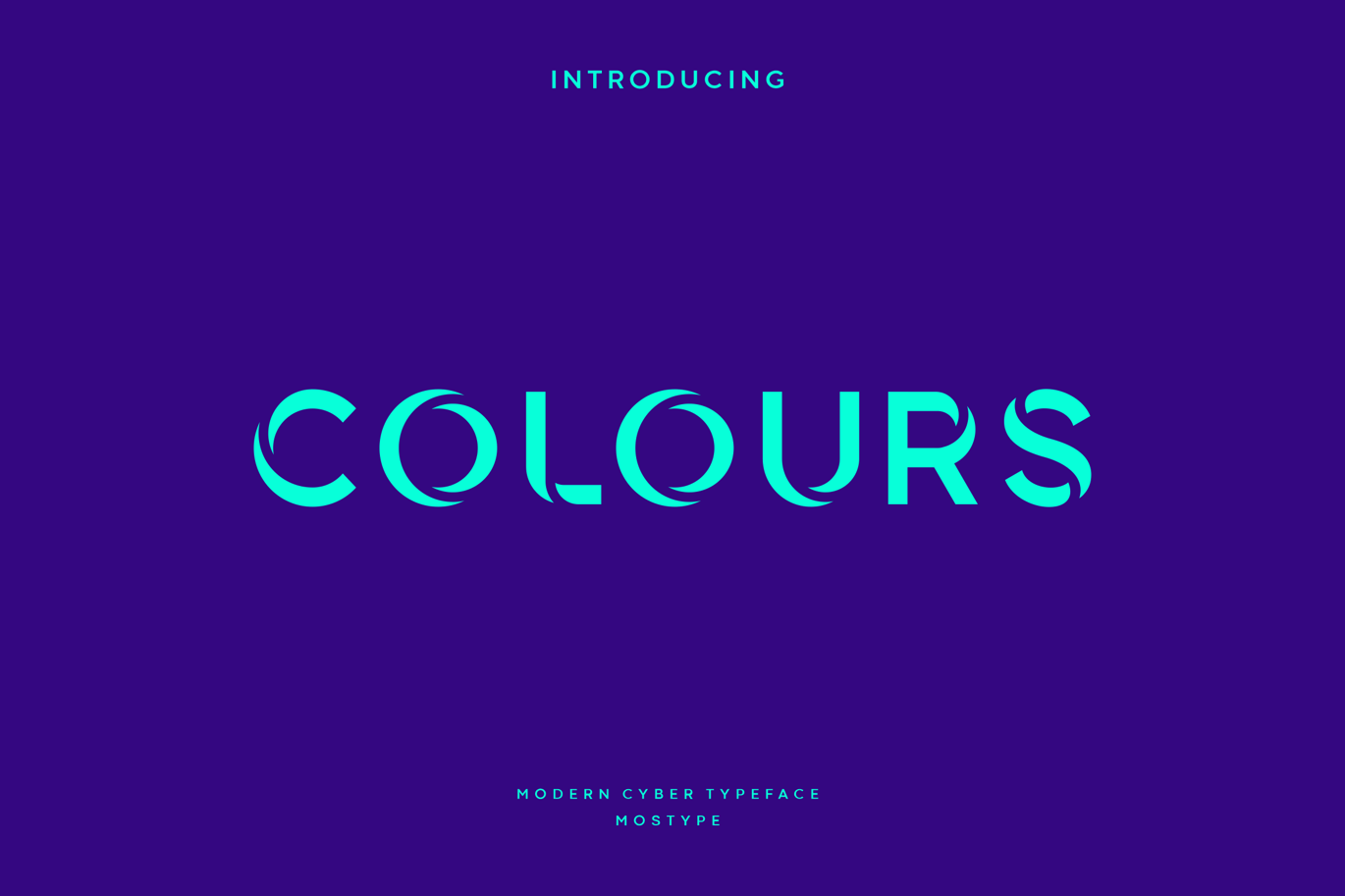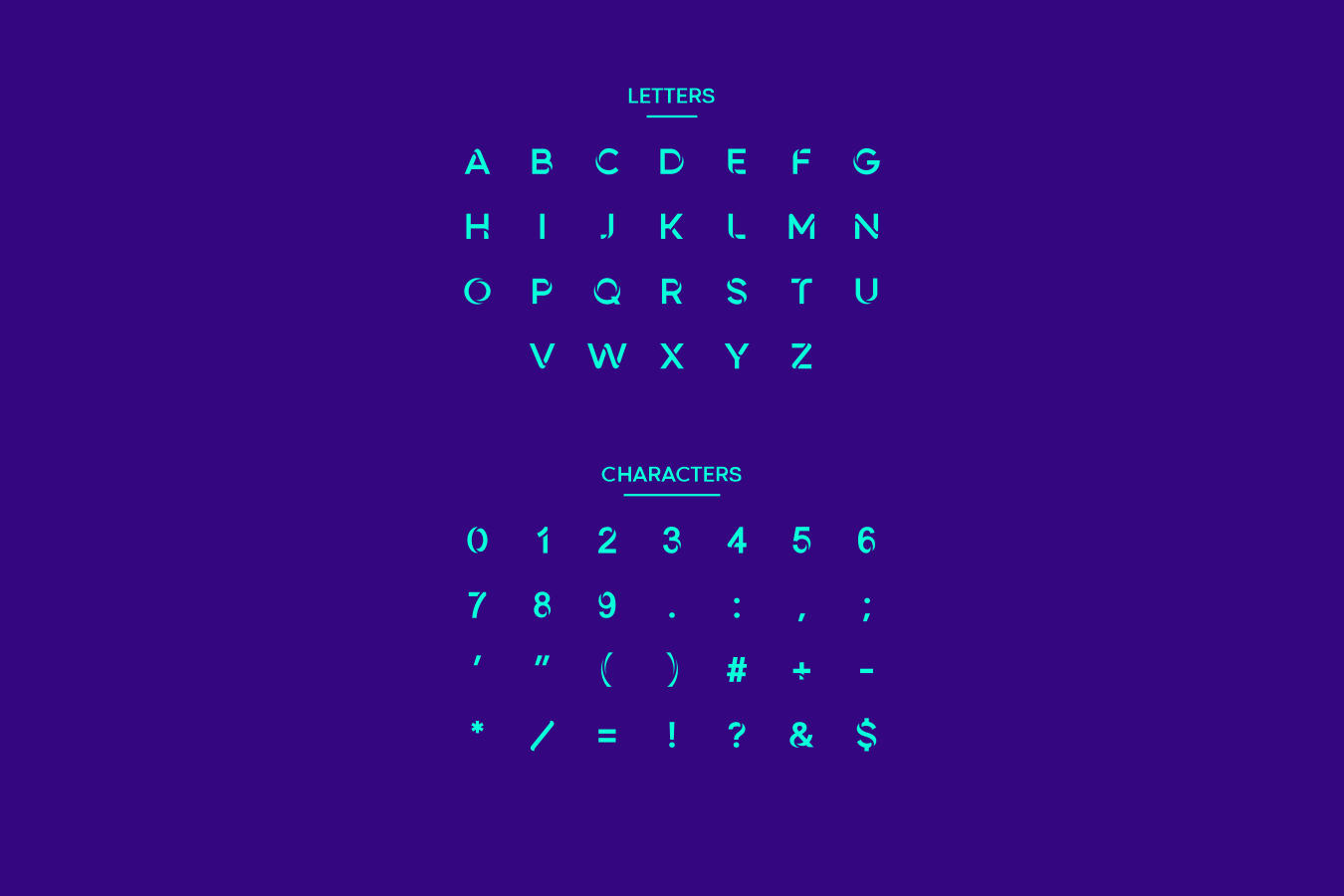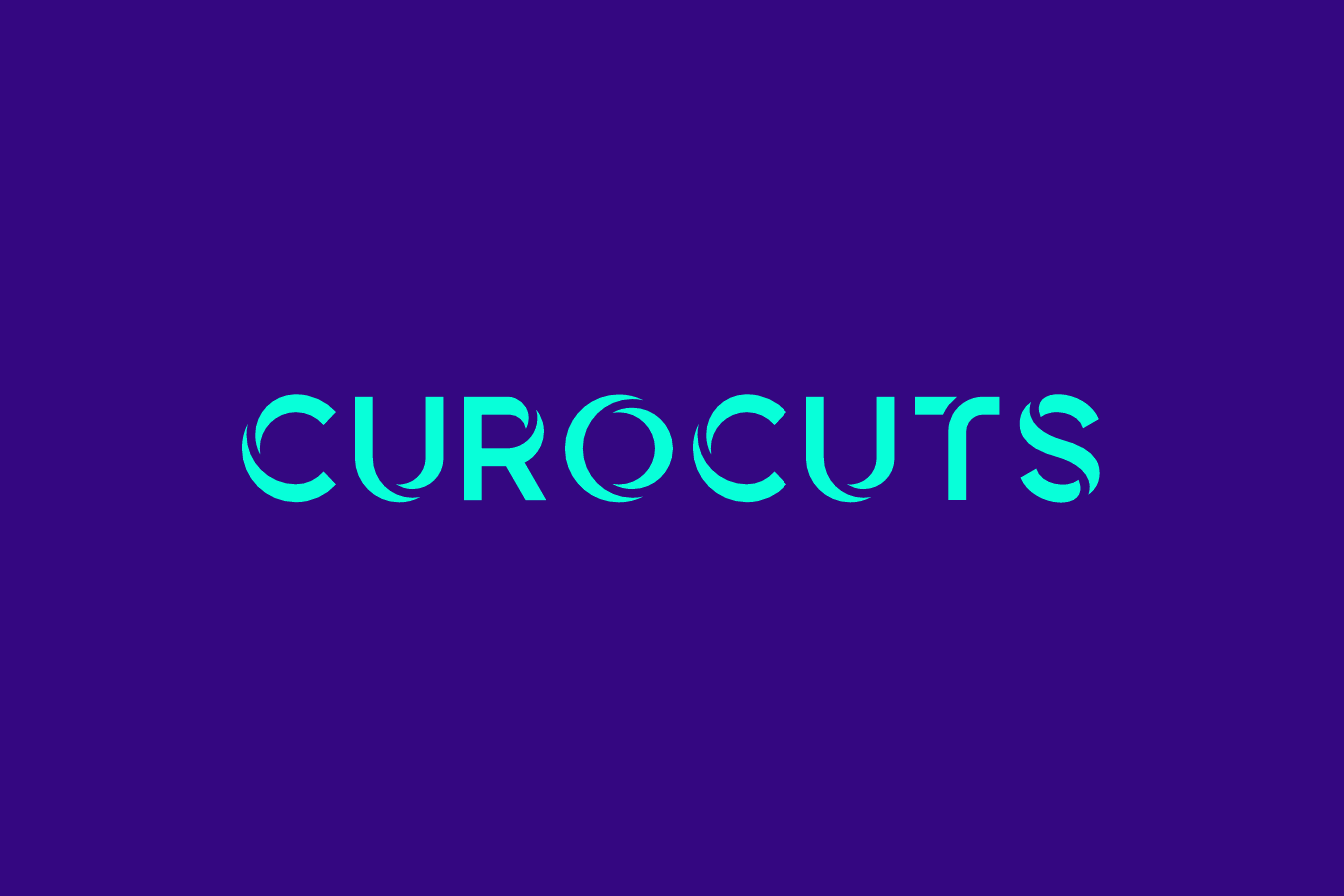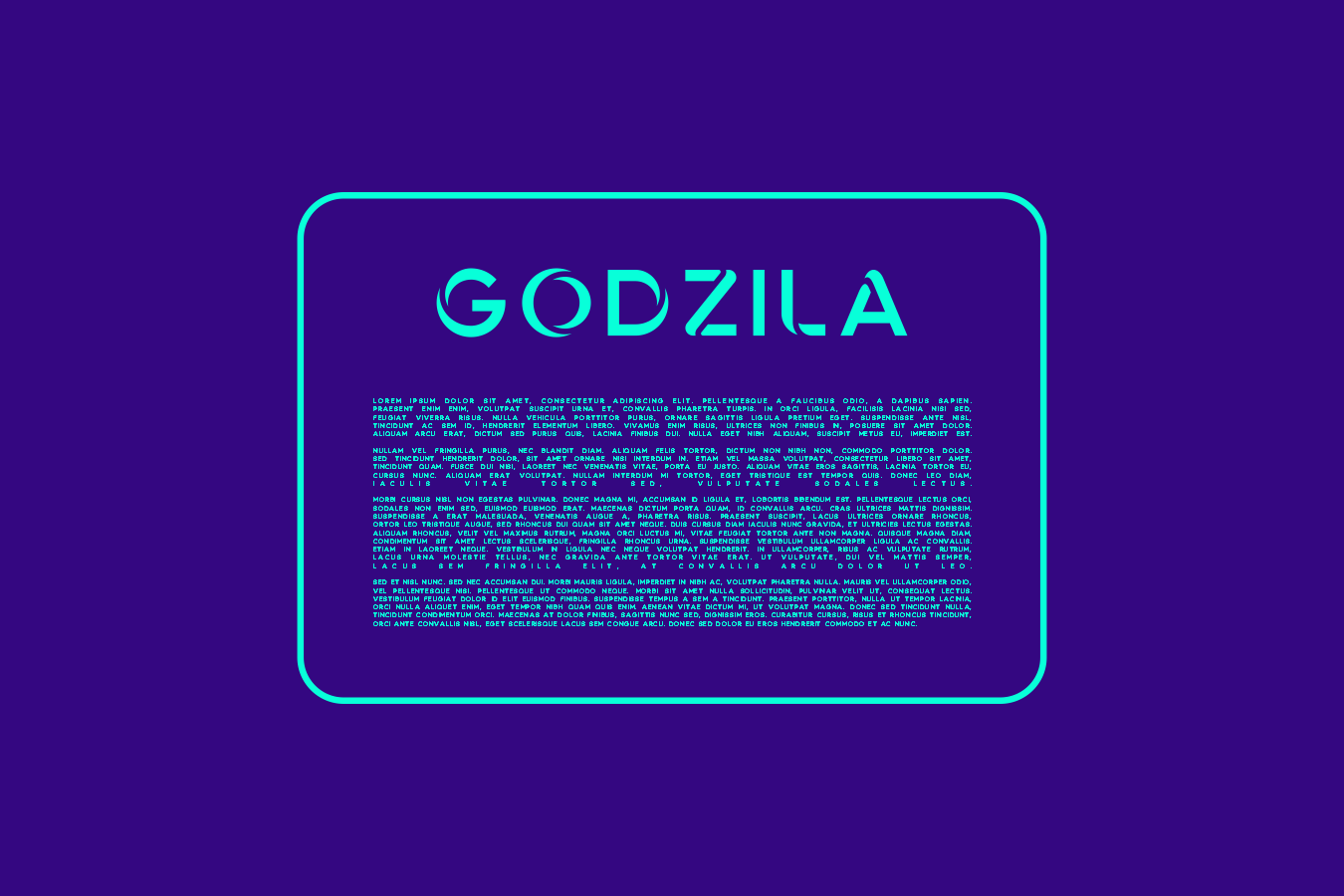
Colours – Modern Cyber Typeface
Colours is cery interesting, so looks modern and very futuristic. The style of a ring separator like 3D makes it more flexible for various designs, of course it will support all styles. Colours It’s suitable for logo titles, branding, signatures, and design with technology themed and the future, because this font is very sophisticated. Wait moreover, take this timeless font.